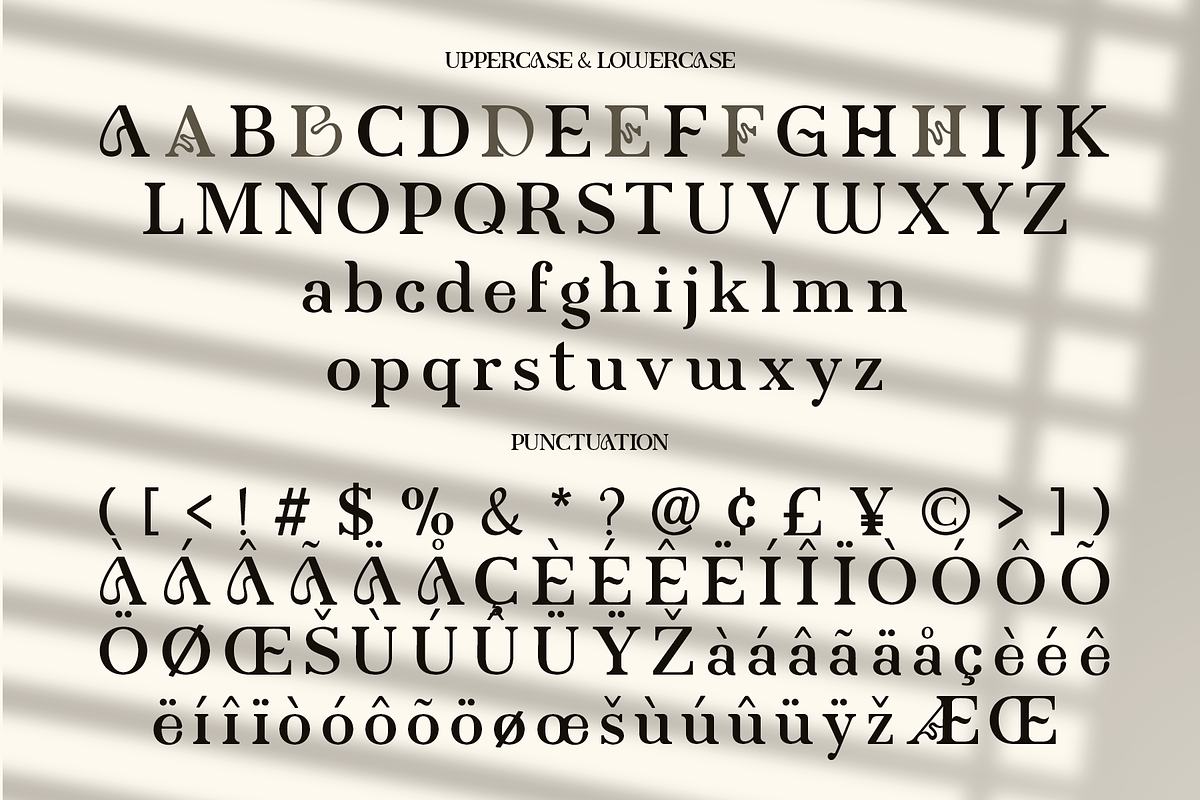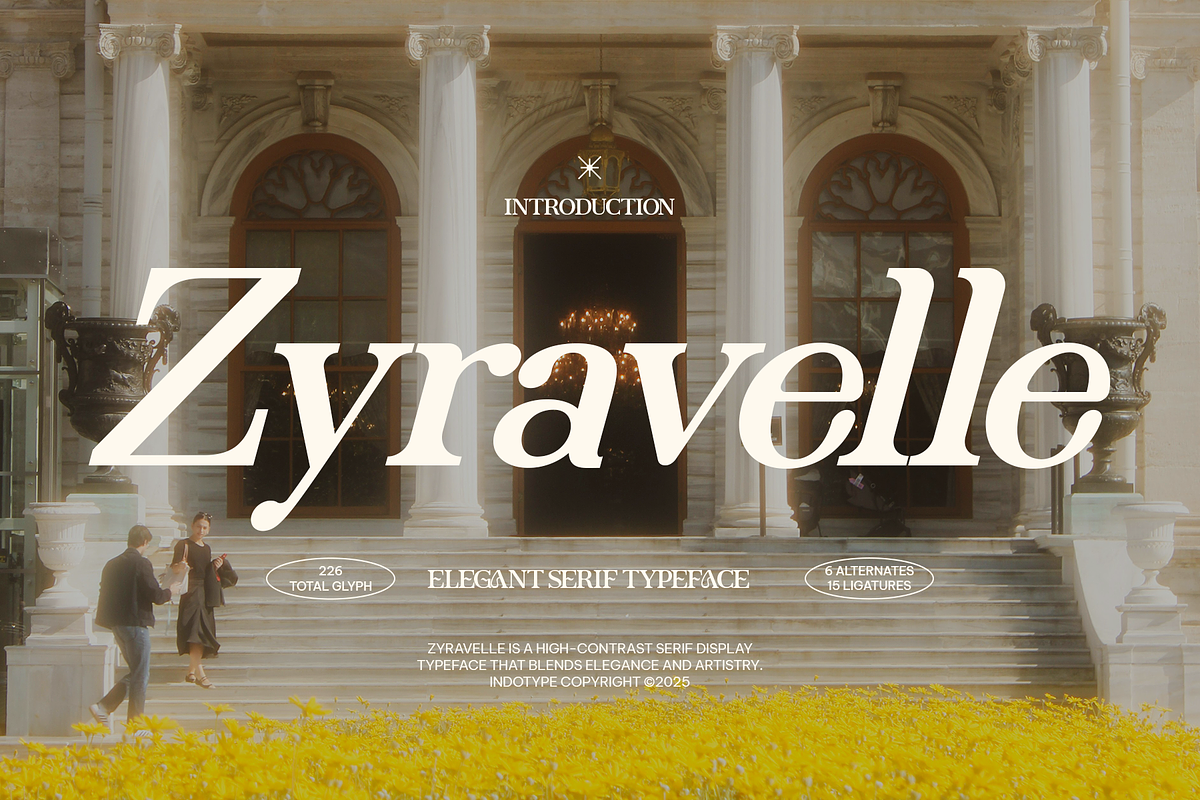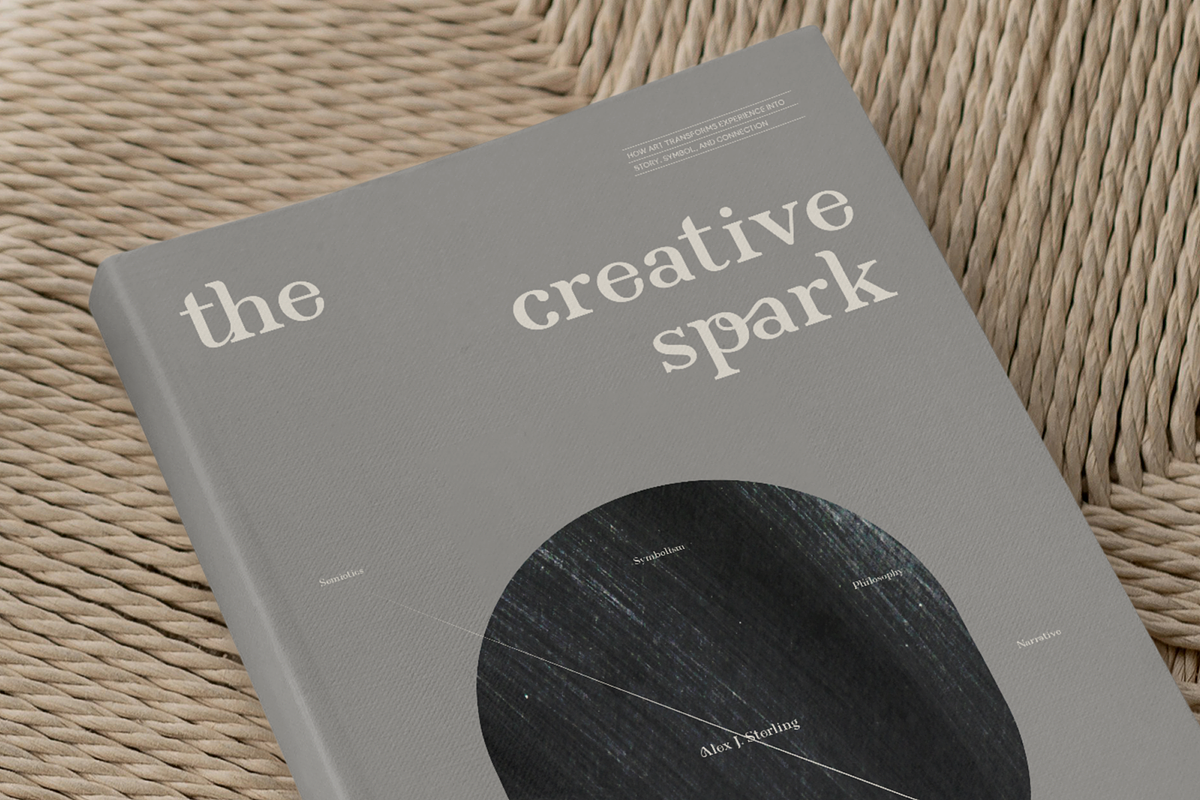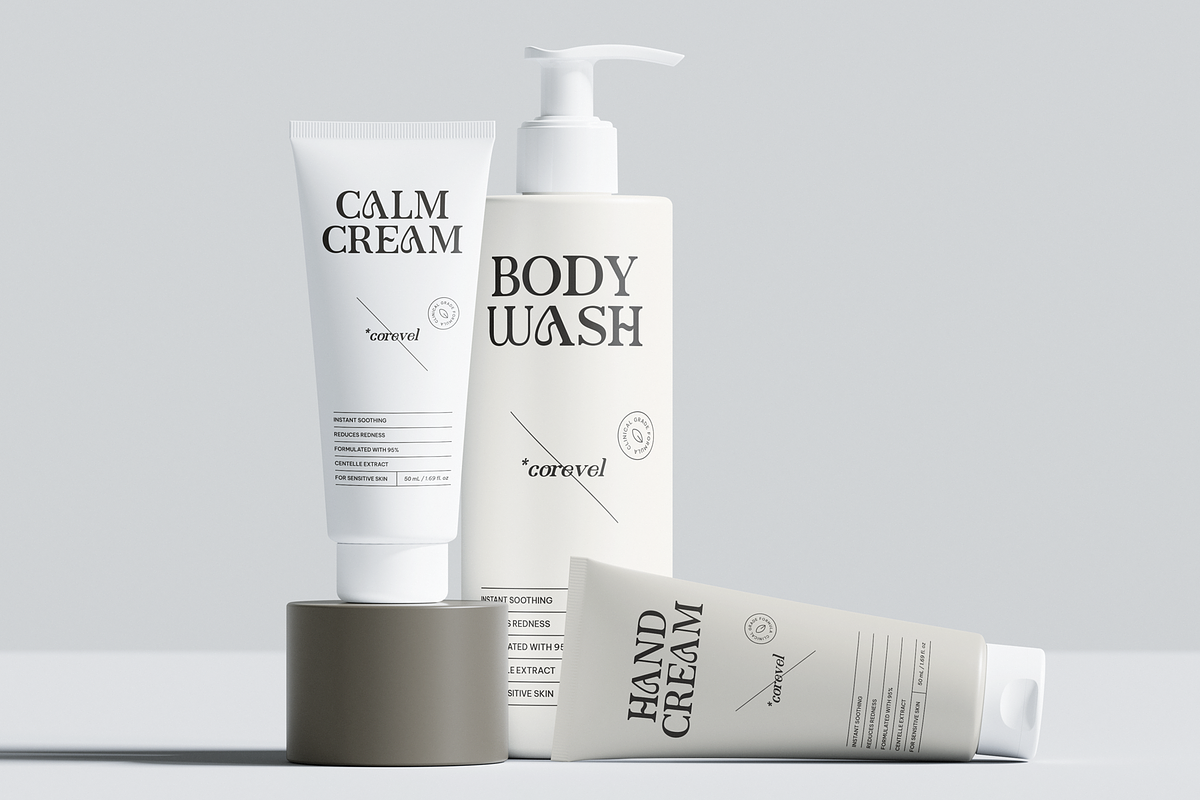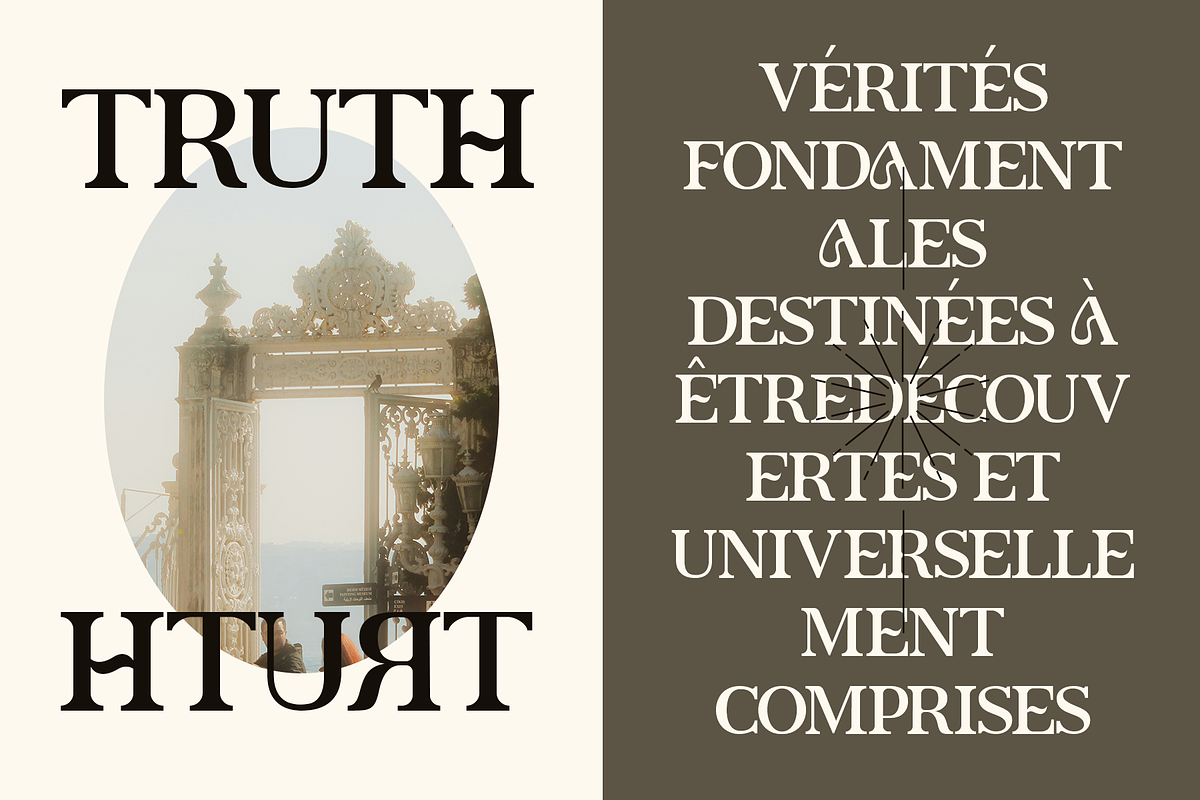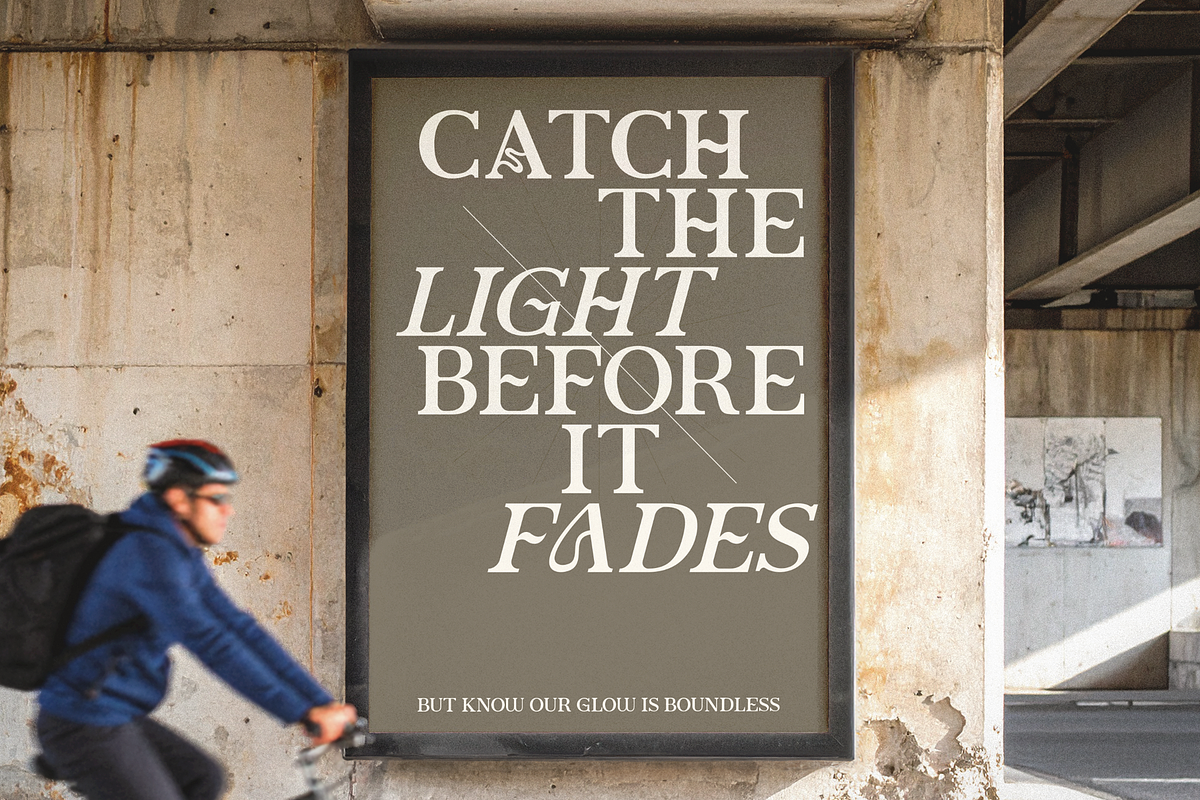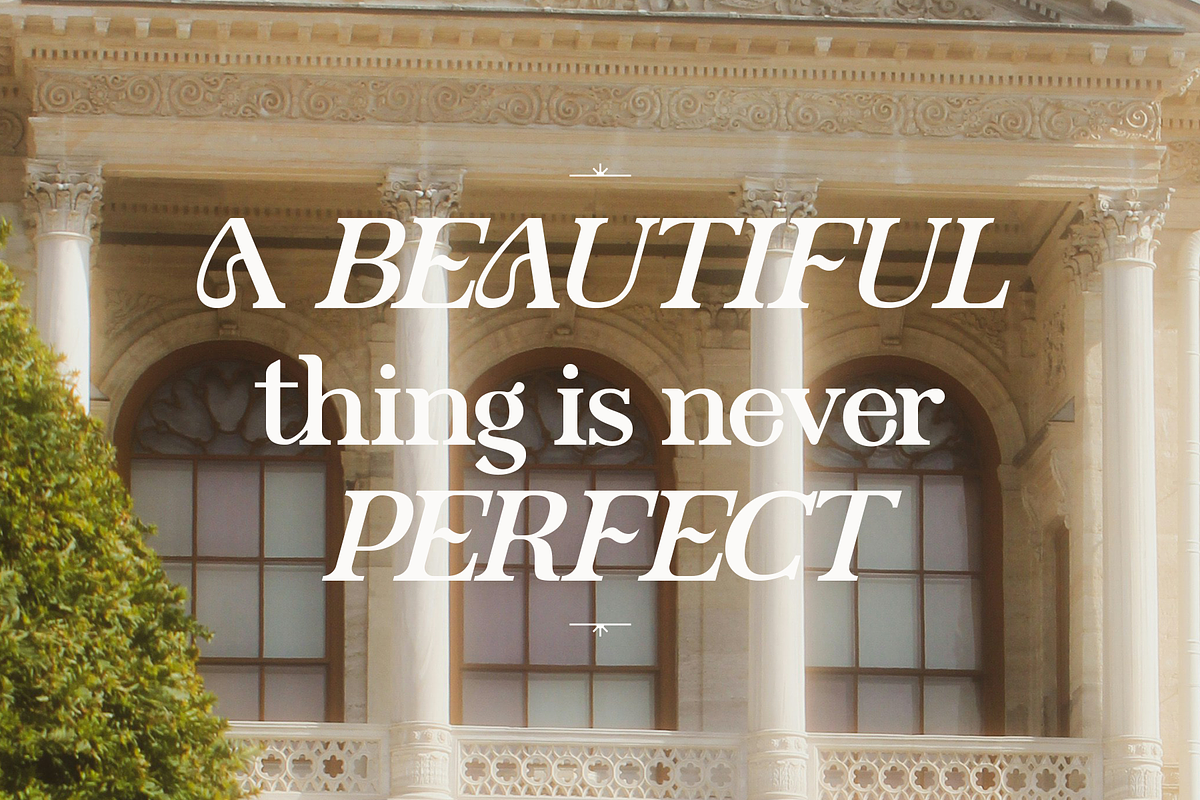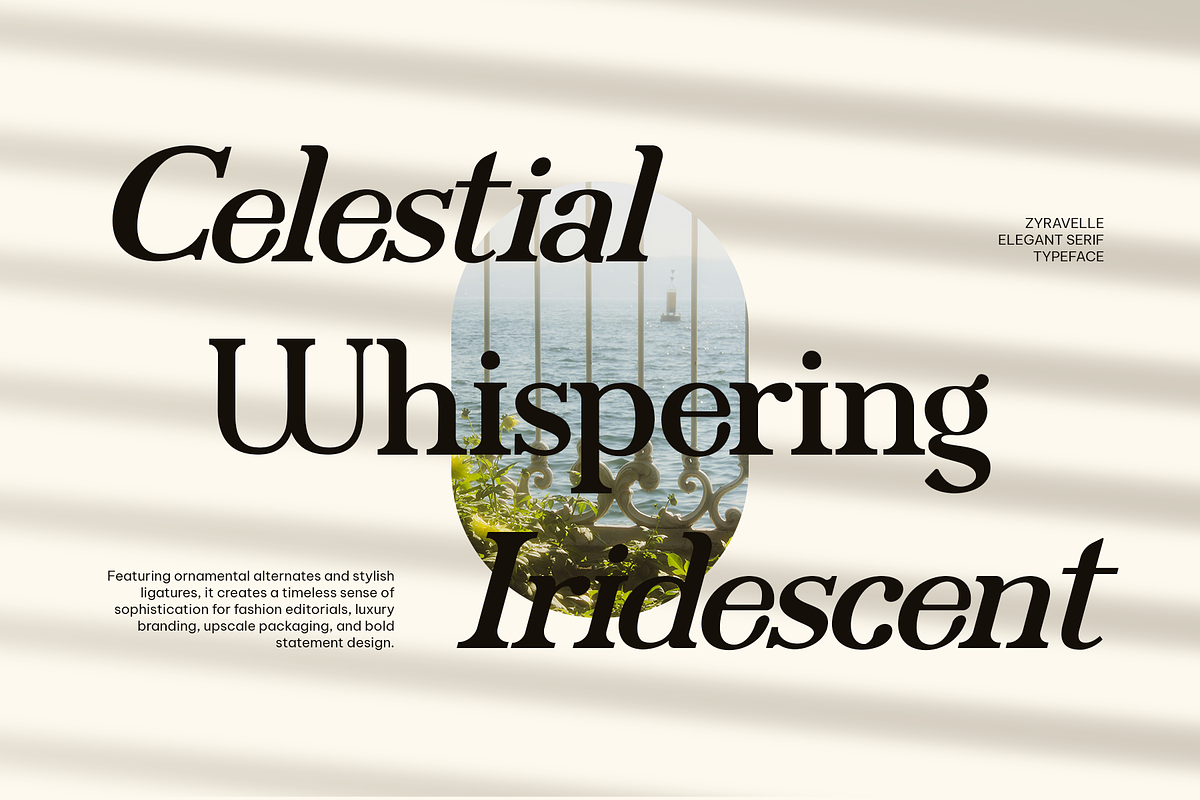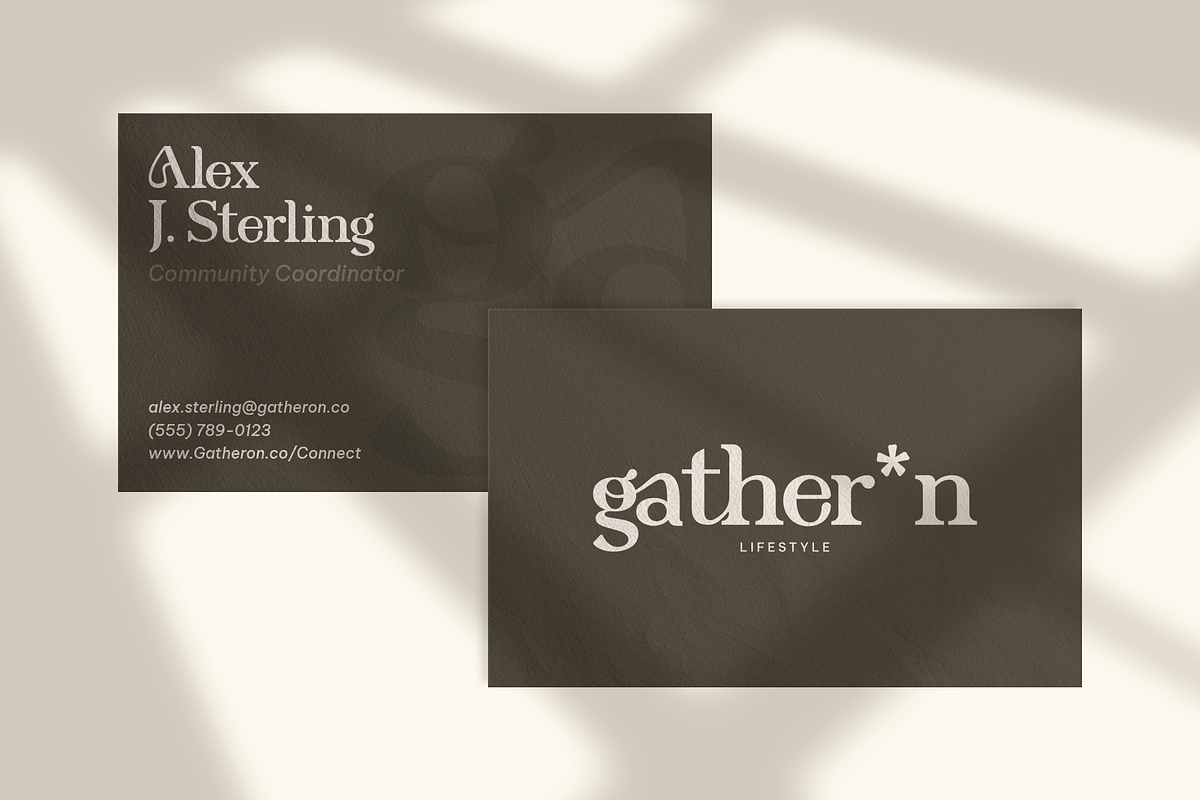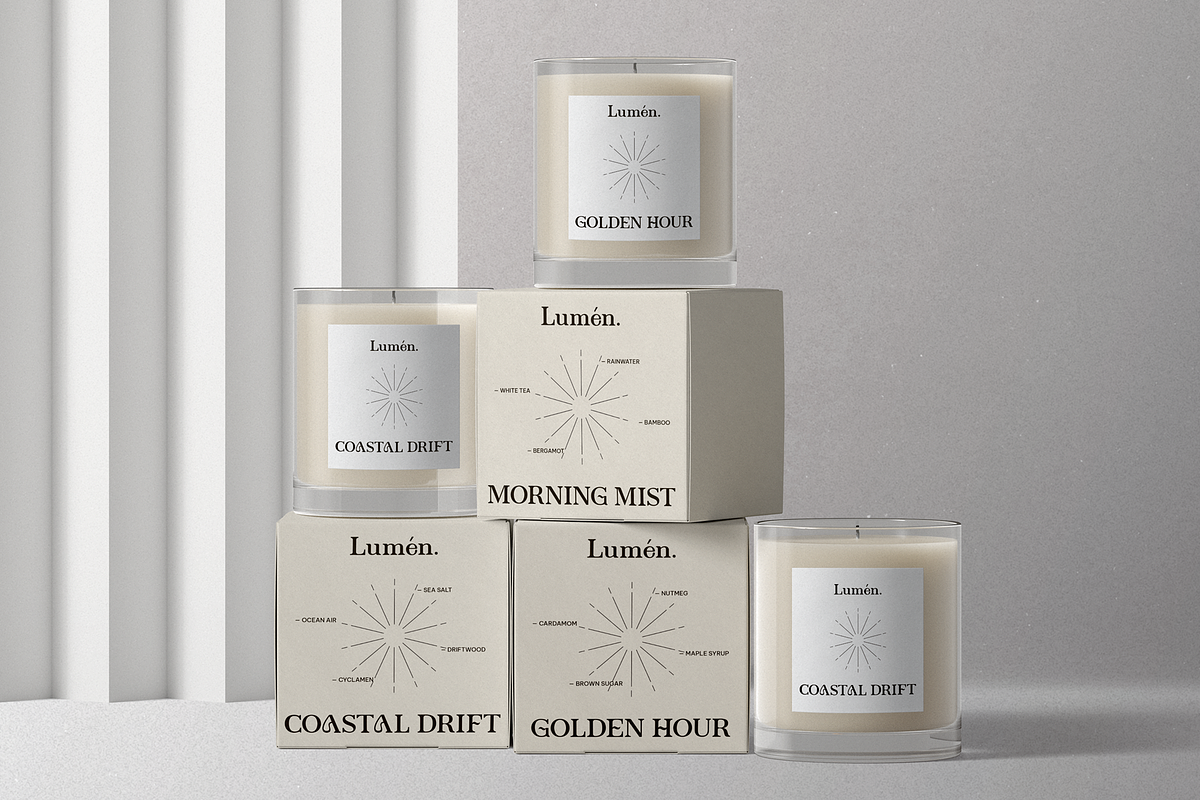
Zyravelle - Elegant Serif Display
Zyravelle represents the pinnacle of refined typographic artistry, an elegant high-contrast serif display typeface that harmoniously blends classical sophistication with contemporary flair. With its dramatic stroke variation—where thick stems meet delicate hairlines—Zyravelle commands attention while maintaining an air of graceful refinement. This is typography as visual poetry, designed for those who appreciate beauty in every detail. Zyravelle was born from the belief that typography should elevate content from mere communication to artistic expression. This typeface bridges centuries of serif tradition with modern design sensibilities, creating a font that feels both timeless and contemporary. The dramatic contrast isn't merely visual—it's emotional, creating typography that whispers elegance yet speaks with confidence. The included alternates and ligatures transform functional text into bespoke lettering, offering designers the tools to create truly unique compositions.